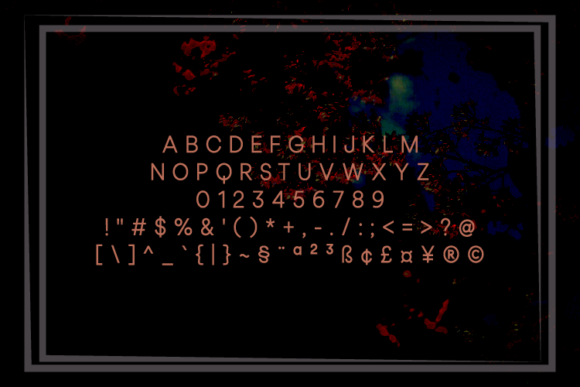
Introducing Grilesthy Medium Font: The Ultimate Friendly Sans-Serif Font
Are you tired of using fonts that are too formal or lack a personal touch? Look no further than Grilesthy Medium Font, a modern and casual sans-serif font that’s perfect for designers and crafters looking to add a friendly feel to their projects. In this article, we’ll dive into the features and benefits of Grilesthy, and explore how it can elevate your designs to the next level.
A Friendly Font for Modern Designs
Grilesthy is a modern and casual font that’s designed to be incredibly friendly. Its sans-serif design makes it perfect for headlines of all sizes, as well as for blocks of text that require maximum and minimum variations. Whether you’re working on a logo, brochure, or website, Grilesthy is the perfect choice for adding a personal touch to your designs.
10 Weights to Choose From
One of the standout features of Grilesthy is its versatility. The font comes with 10 different weights, ranging from thin to extra black versions. This means you can choose the weight that best suits your design or project, without having to compromise on style or legibility. Whether you need a bold and dramatic font or a light and airy one, Grilesthy has got you covered.
Grilesthy Medium Font is perfect for a wide range of projects, including:
- Logos and branding: Add a friendly and approachable feel to your logo and branding with Grilesthy.
- Headlines and titles: Use Grilesthy to create bold and eye-catching headlines and titles that grab attention.
- Body text: Grilesthy’s clear and legible design makes it perfect for blocks of text, whether you’re working on a website, brochure, or book.
- Signage and displays: Grilesthy’s friendly feel makes it perfect for signage and displays, whether you’re working on a storefront, billboard, or exhibition display.
Why Choose Grilesthy?
So why choose Grilesthy Medium Font over other fonts on the market? Here are just a few reasons:
- Unique and friendly feel: Grilesthy’s modern and casual design sets it apart from other fonts on the market.
- Versatile: With 10 different weights to choose from, Grilesthy is perfect for a wide range of projects and designs.
- Legible: Grilesthy’s clear and legible design makes it perfect for body text and headlines.
How to Use Grilesthy in Your Designs
Using Grilesthy in your designs is easy. Here are a few tips to get you started:
- Choose the right weight: With 10 different weights to choose from, select the one that best suits your design or project.
- Pair with other fonts: Grilesthy pairs well with other sans-serif fonts, as well as script and serif fonts.
- Experiment with colors: Grilesthy looks great in a variety of colors, from bold and bright to subtle and muted.
- Have fun: Don’t be afraid to get creative and experiment with different styles and effects.
In conclusion, Grilesthy Medium Font is a modern and casual sans-serif font that’s perfect for designers and crafters looking to add a friendly feel to their projects. With its 10 different weights, versatile design, and legible style, Grilesthy is perfect for a wide range of projects, from logos and branding to headlines and body text. So why not give Grilesthy a try and see how it can elevate your designs to the next level?
- Font Name: Grilesthy
- Font Style: Sans-Serif
- Weights: 10 (Thin to Extra Black)
- Use: Headlines, body text, logos, branding, signage, and displays